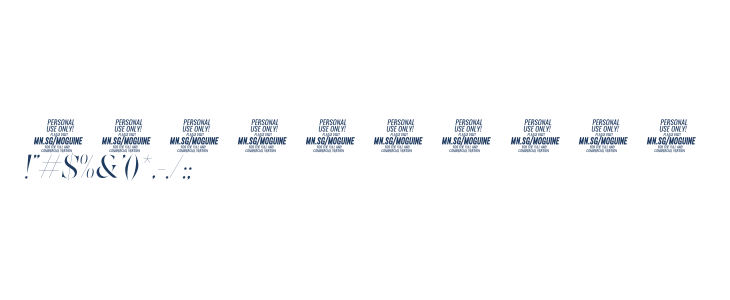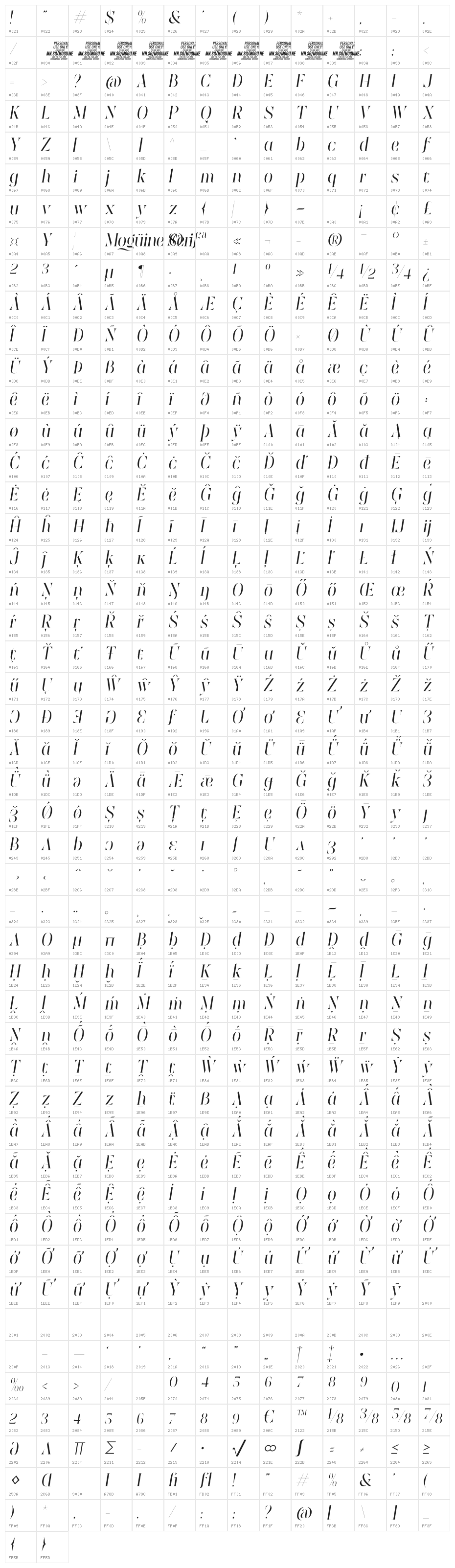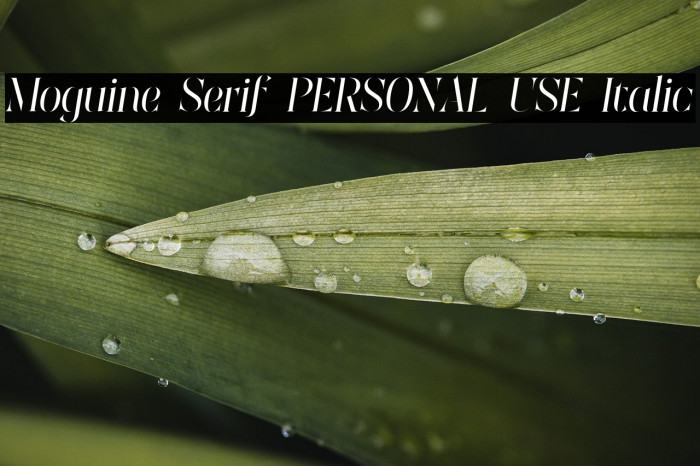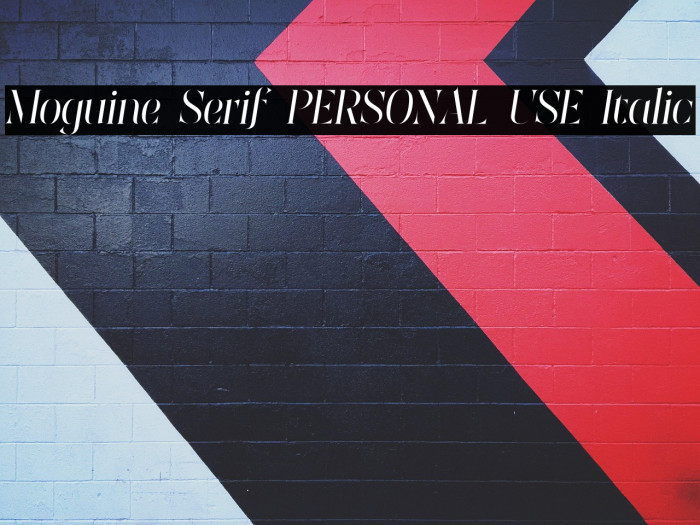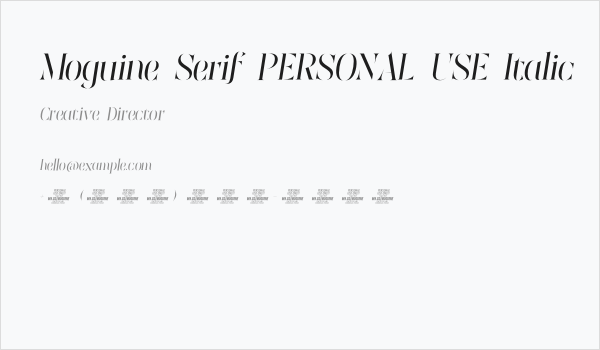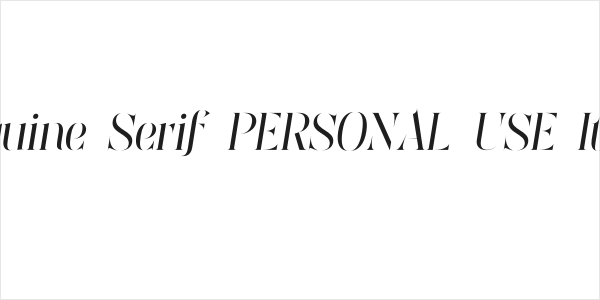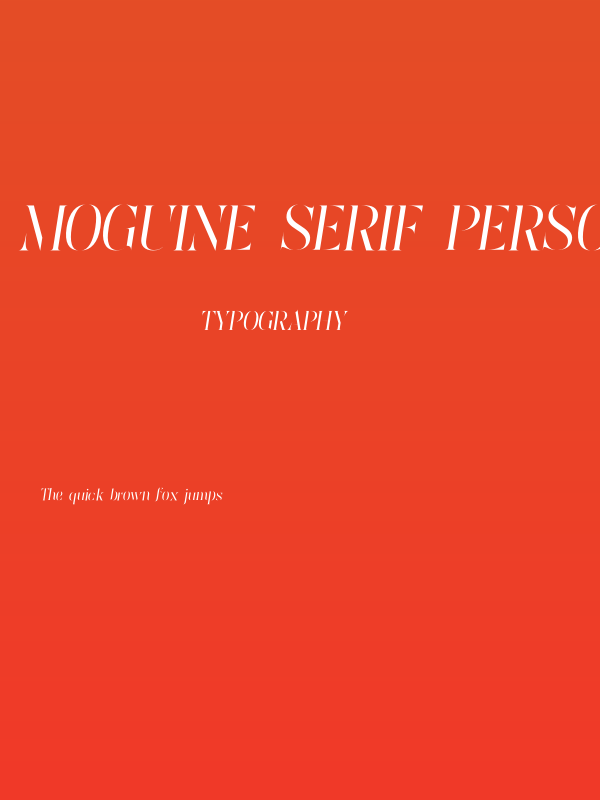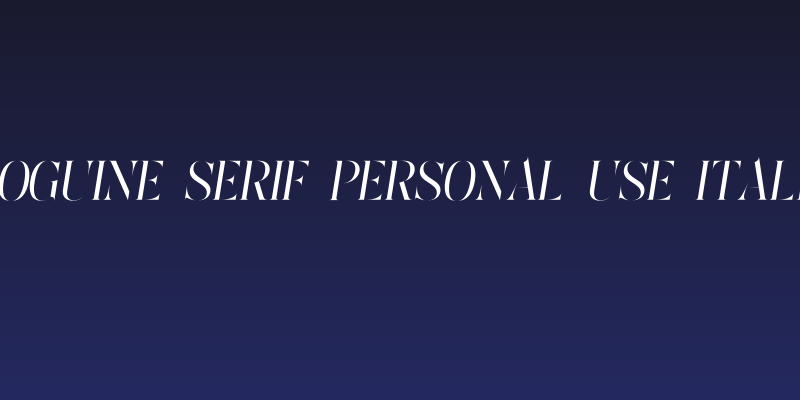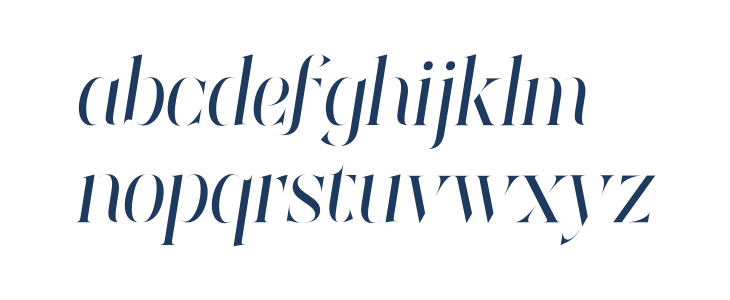
Moguine Serif PERSONAL USE Italic Font
Moguine Serif PERSONAL USE Italic Description
This font features a sophisticated and elegant serif style with a distinct italic slant, giving it a dynamic and fluid appearance. The characters are characterized by sharp, angular serifs and a high contrast between thick and thin strokes, adding a dramatic flair. The uppercase letters are tall and commanding, while the lowercase letters maintain a graceful flow. The numerals and special characters are designed with the same attention to detail, ensuring consistency throughout. This font exudes a sense of luxury and refinement, making it suitable for high-end branding and editorial design.
| Overall Style | Elegant, Sophisticated |
| Use Case | Headlines, Logos, Editorial design |
| Proposed Projects | Ideal for luxury branding, fashion magazines, wedding invitations, and elegant editorial layouts. |